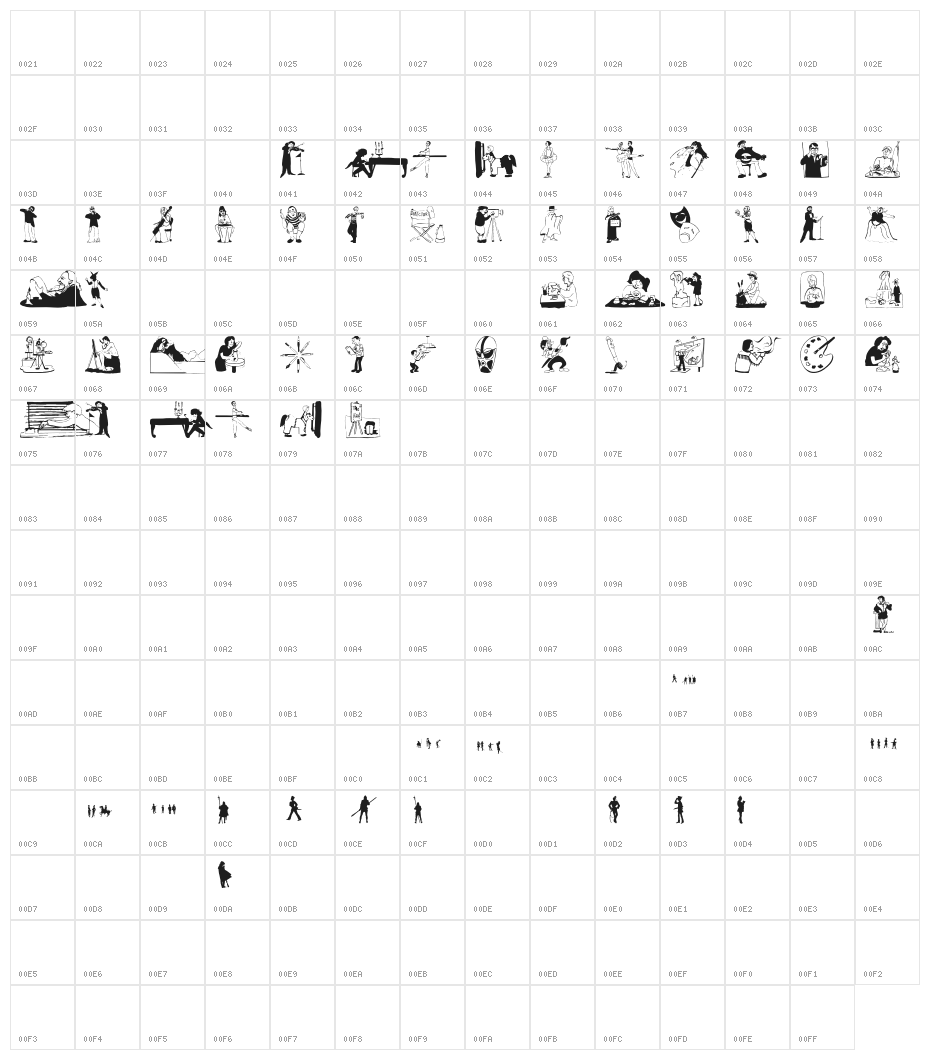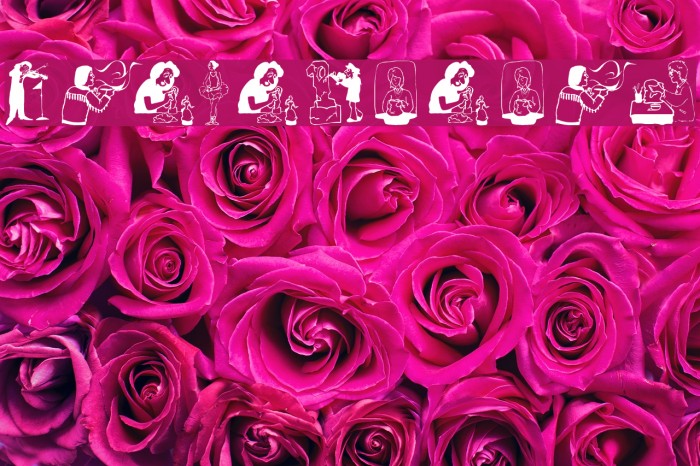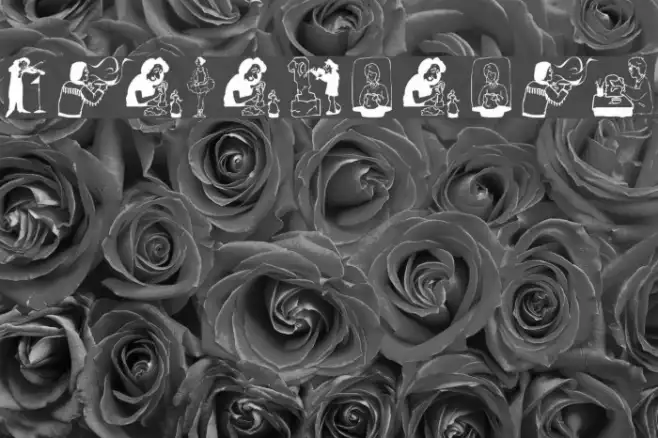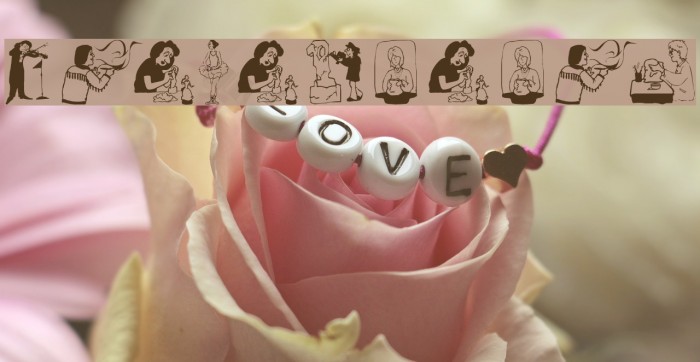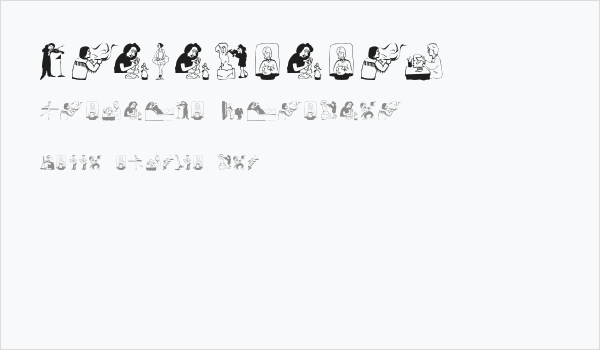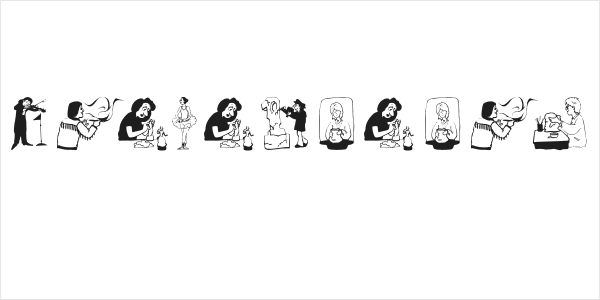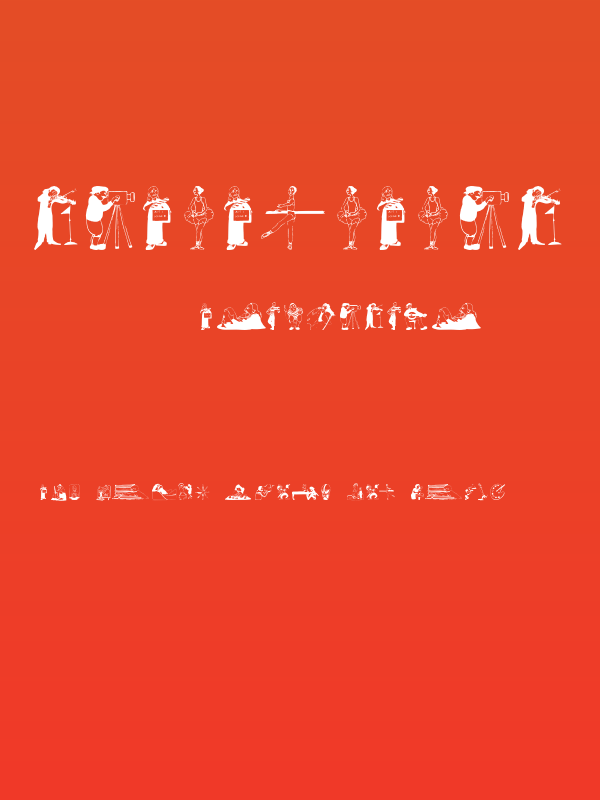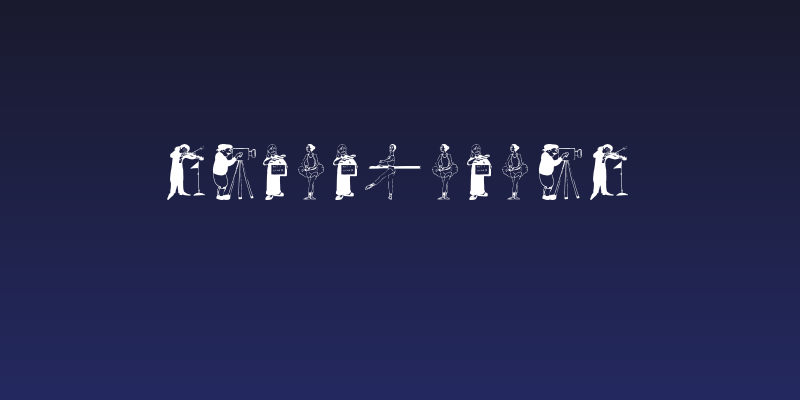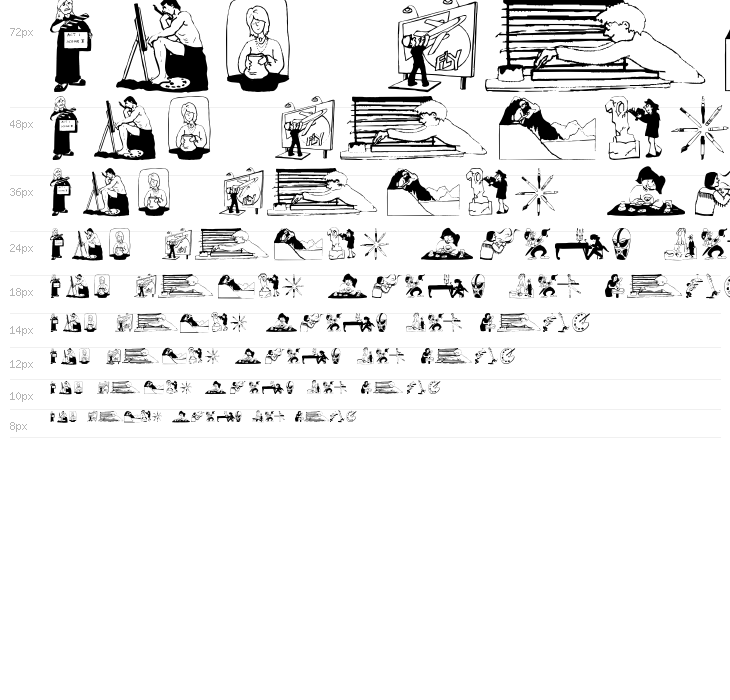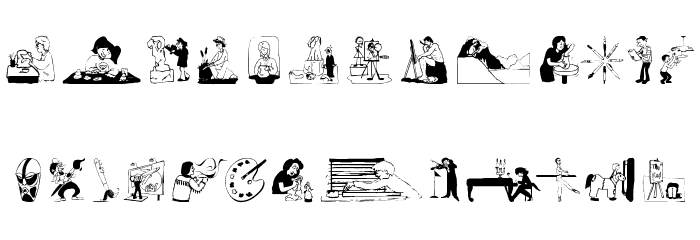
ArtEtcetera Font
This is not a traditional font but rather a collection of artistic illustrations representing various creative activities and professions. Each character is depicted through a unique drawing that captures the essence of art and performance, such as painting, acting, and music. The style is whimsical and playful, with each illustration conveying a sense of movement and creativity. The characters are detailed and expressive, making them suitable for projects that aim to highlight artistic themes or celebrate the arts.
| Use Case | Decorative elements, Art-themed projects |
| Proposed Projects | Ideal for art-themed posters, educational materials about the arts, creative event invitations, or decorative elements in artistic publications. |